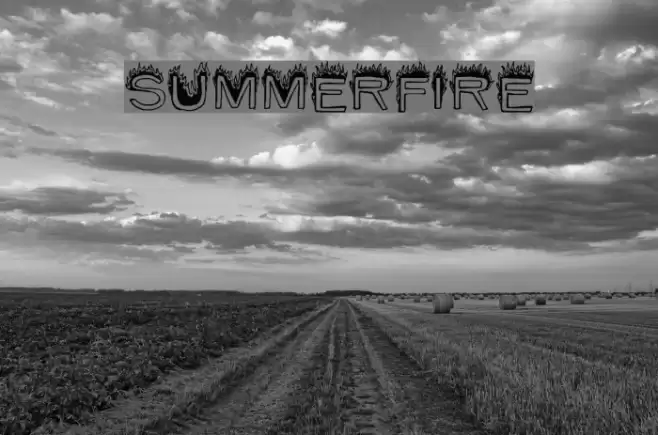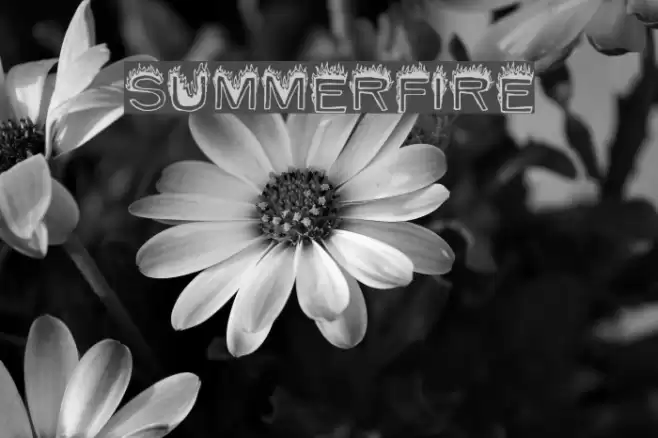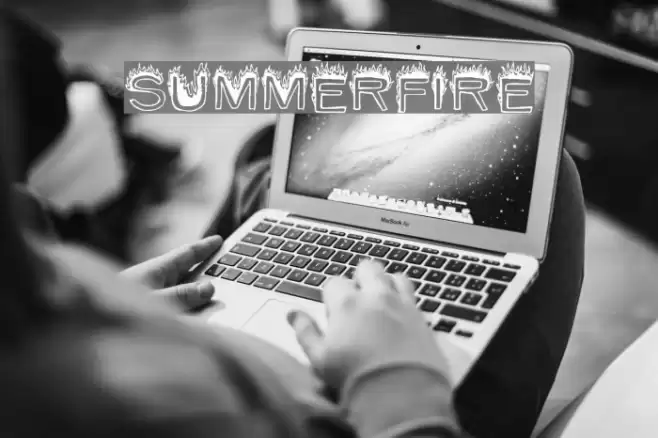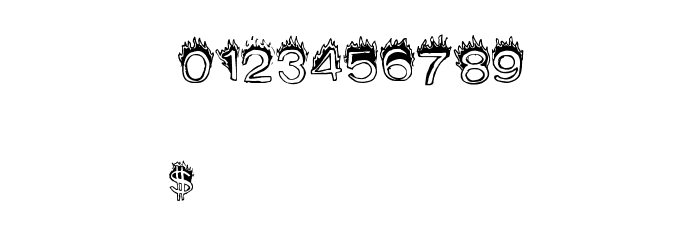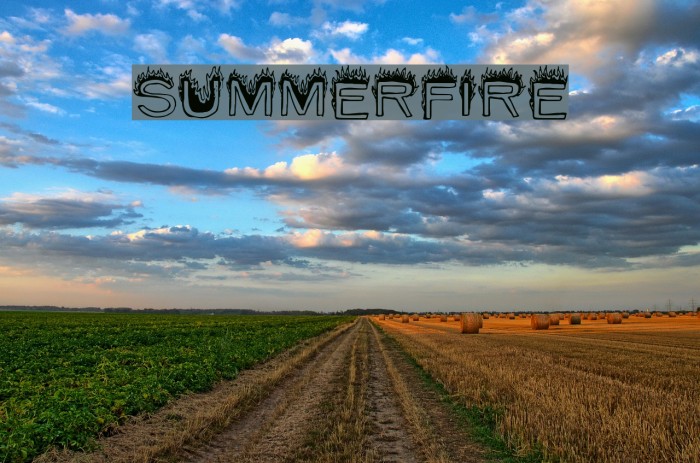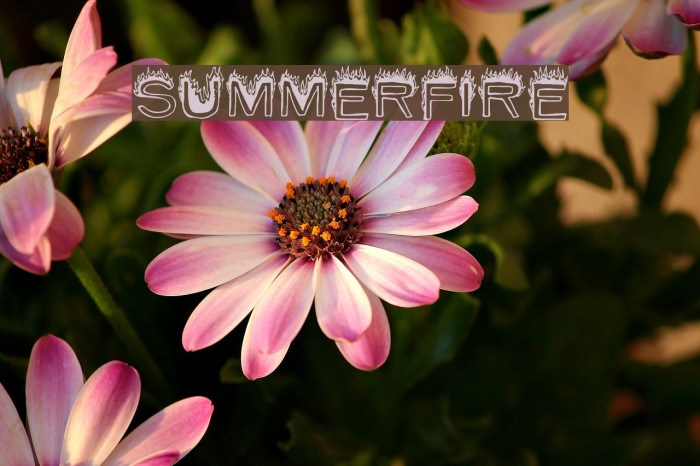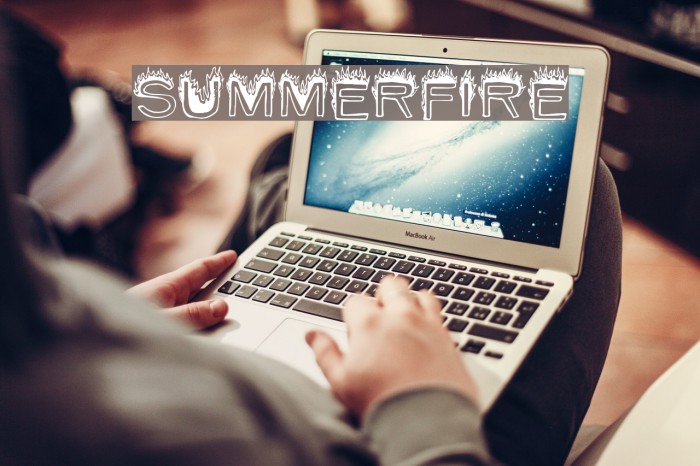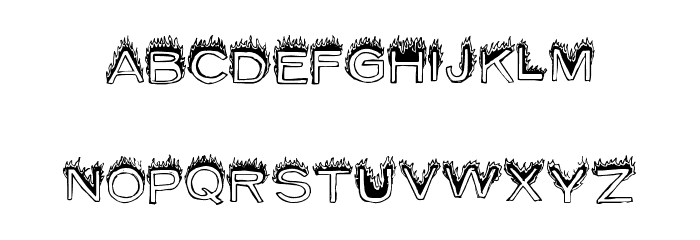
SummerFire Font
SummerFire Description
This font features a bold and dynamic design with each character engulfed in stylized flames, creating a sense of movement and intensity. The uppercase letters are prominent, with sharp edges and a distinct fiery effect that adds a dramatic flair. The numbers and special characters maintain the same fiery theme, ensuring consistency across all elements. This font is ideal for projects that require a bold statement or a theme related to heat, fire, or energy. Its unique style makes it suitable for eye-catching headlines, posters, or branding materials that aim to capture attention and convey a sense of excitement.
A bold, fiery font with dynamic flame effects on each character from Fancy fonts.
- Proposed Projects: Ideal for event posters, branding for energy drinks, or any project needing a fiery, intense theme.
- Use Case: Headlines, Posters, Branding